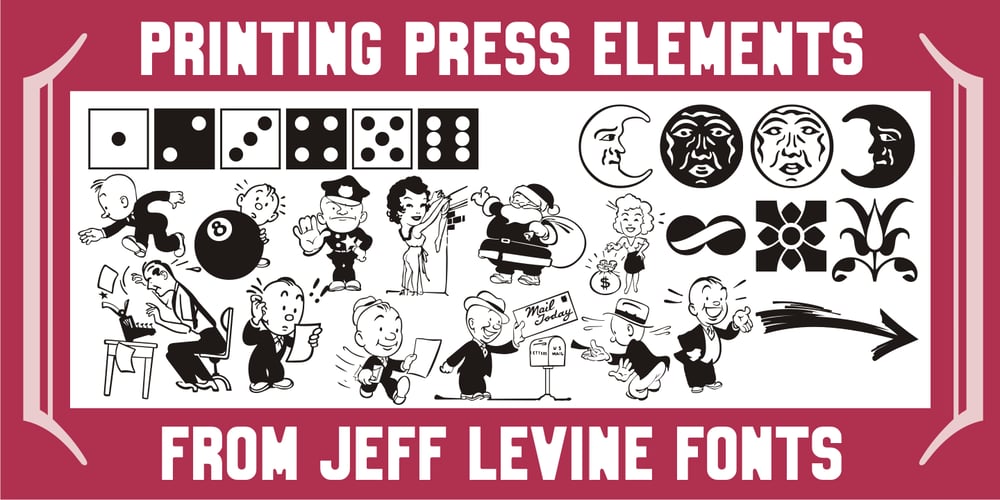
Printing Press Elements JNL Font Family was designed by Jeff Levine and published by Jeff Levine. Printing Press Elements JNL contains 1 styles and family package options. Printing Press Elements JNL contains an eclectic assortment of printer’s elements. From a set of dice (in both black and white faces) to cartoon embellishments to border and decorative elements there’s something to fit numerous uses. Also included is an extendable bracket. The left-facing elements are on the < (less than), = (equal) and > (greater than) keys. The right-facing elements are on the [ (left bracket), (backslash) and ] (right bracket) keys.